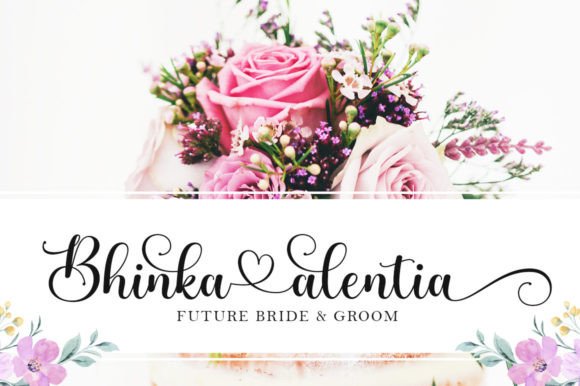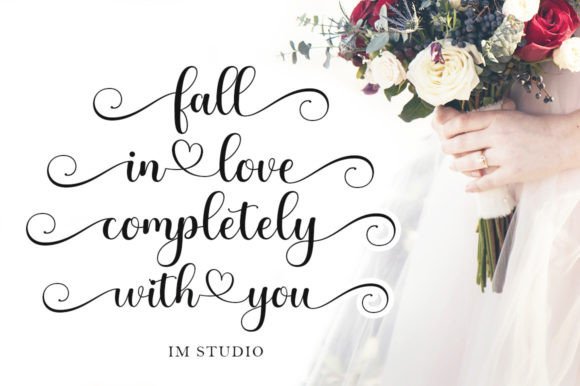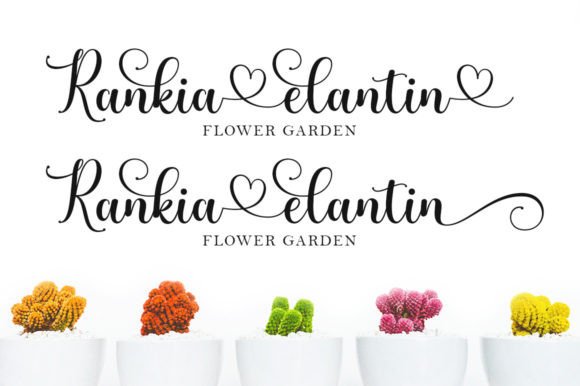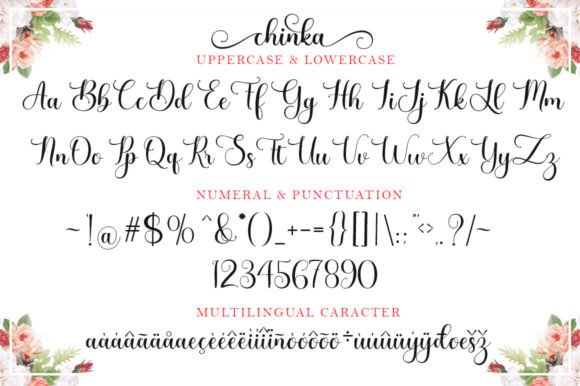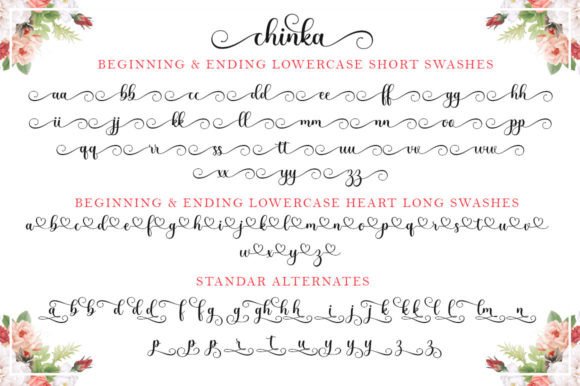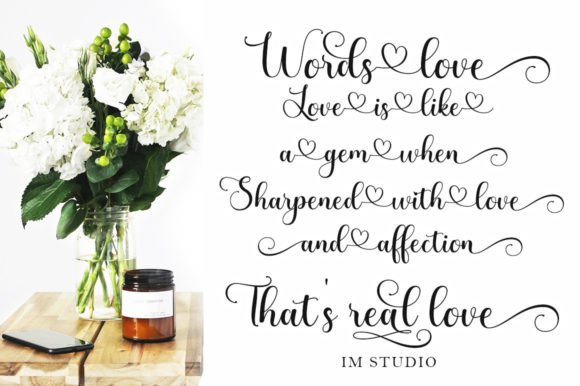
The Designer’s Delight: Unveiling the Chinka Font
I’ll never forget the time I was working on a project for a client who wanted a font that was elegant, sophisticated, and would make their brand stand out. I spent hours scouring through font libraries, but nothing seemed to fit the bill. That was until I stumbled upon the Chinka font. ✨ This dazzling script font has been a game-changer for my design projects, and I’m excited to share its beauty with you.
As a designer, I’m always on the lookout for fonts that can elevate my creations. Here’s what I love about Chinka:
- ✨ Exquisite craftsmanship: Chinka is meticulously designed, with intricate details that make it a joy to use.
- ✅ Versatility: Whether you’re working on a logo, brochure, or social media graphics, Chinka adapts seamlessly to any project.
- 💫 Elegant and sophisticated: This font exudes refinement and poise, making it perfect for high-end brands or luxury projects.
While Chinka is an exceptional font, there are a few minor quirks to be aware of:
- ⚠️ Limited use in body text: Due to its script nature, Chinka may not be the best choice for lengthy paragraphs. Stick to headlines, titles, or short sentences for maximum impact.
- 🤔 Some characters may require adjustment: Depending on the context, certain characters might need tweaking to ensure optimal spacing and readability.
The Story Behind Chinka: A Designer Inspiration
Chinka was crafted by a talented type designer who aimed to create a font that would evoke the elegance of traditional calligraphy. Inspired by the intricate details of copperplate engraving, Chinka brings a touch of sophistication to any design project. Although the actual designer’s story might be shrouded in mystery, their creation has undoubtedly left a lasting impact on the design world.
| What type of projects is Chinka best suited for? | Chinka excels in projects that require elegance and sophistication, such as luxury branding, high-end packaging, and refined editorial design. |
| How does Chinka compare to other script fonts? | Chinka stands out for its exceptional craftsmanship, versatility, and elegant design. While other script fonts may share some similarities, Chinka’s unique character makes it a valuable addition to any font library. |